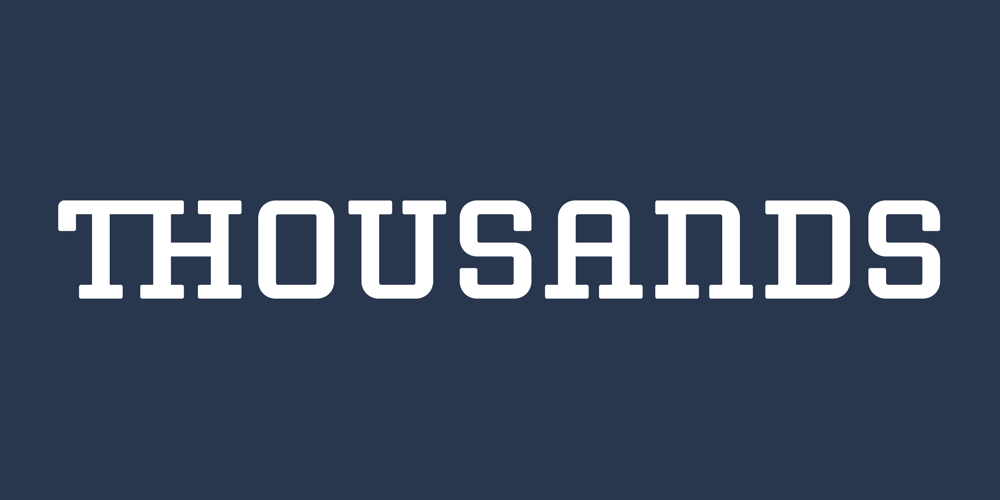
Thousands Font Family was designed by Ryoichi Tsunekawa and published by Dharma Type. Thousands contains 3 styles and family package options. This slab serif has an incredible type system. By using power of OpenType alternates, typographic flexibility going up and up as its name indicates. Serifs transform, change to small caps and ligatures give you rich typography.